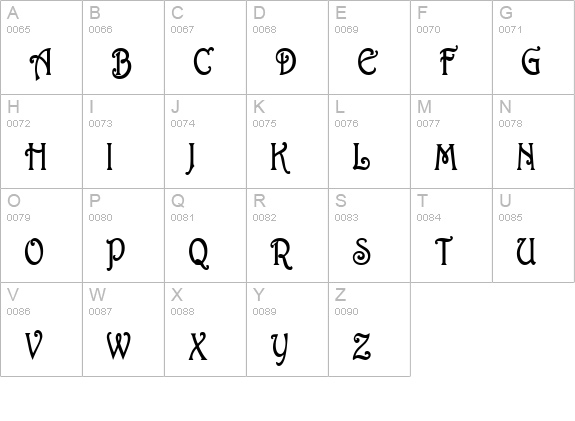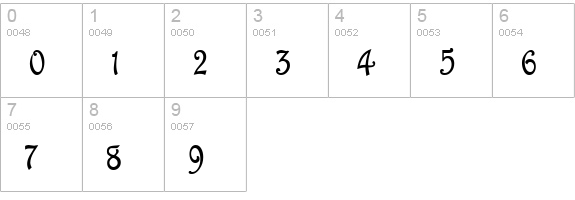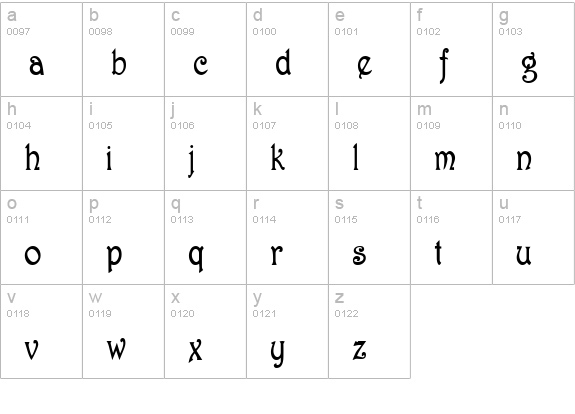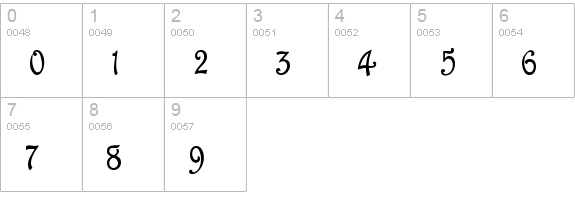
ParisianCondensed Bold Font Details
ParisianCondensed Bold is a strong, high-contrast variant in the ParisianCondensed typeface family \xE2\x80\x94 well suited to headlines, attention-grabbing titles, and strong calls-to-action.
ParisianCondensed Bold font is a stunning display typeface that exudes elegance, sophistication, and a touch of Parisian charm. With its bold and commanding presence, this font is perfect for making a bold statement in your designs. Whether you're creating eye-catching headlines, striking logos, or captivating posters, ParisianCondensed Bold font is sure to captivate your audience's attention. The bold weight of this font adds a sense of strength and authority, making it ideal for designs that require a powerful and impactful look. Its condensed form allows for more efficient use of space, making it a versatile choice for both print and digital projects. What sets ParisianCondensed Bold font apart is its unique combination of classic and contemporary design elements. The letterforms are beautifully crafted, with clean and sharp lines that add a modern twist to its traditional aesthetics. This fusion of styles creates a truly timeless and versatile font that can be used in a wide range of design applications. And the best part? ParisianCondensed Bold font is freely available to download at FontsMarket.com. This means that you can easily access this exceptional typeface without any hassle or cost. Whether you're a professional designer or a creative enthusiast, you can now incorporate the beauty and sophistication of ParisianCondensed Bold font into your projects with ease. So, why wait? Enhance your designs with the bold and captivating appeal of ParisianCondensed Bold font. Download it for free at FontsMarket.com and unlock a world of endless design possibilities.